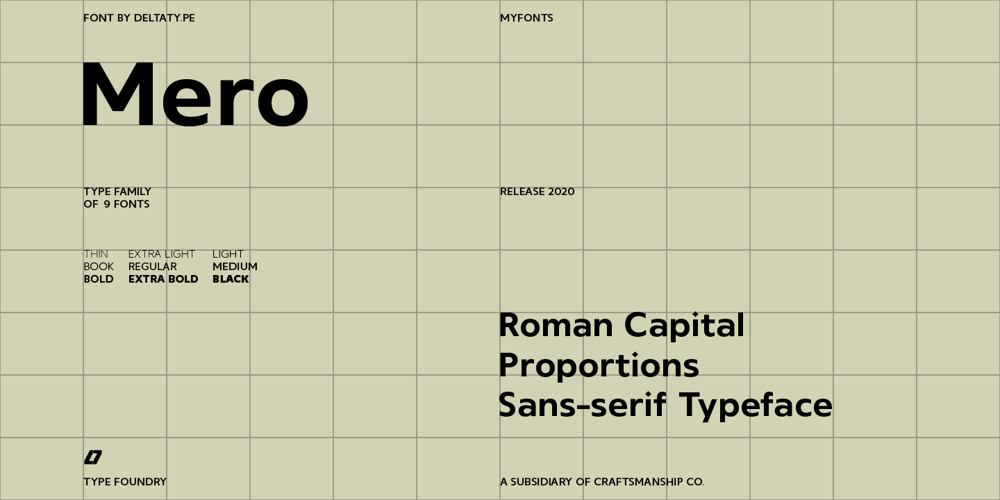
Mero
Mero font
Mero Font Family was designed by Kwanchai Akkaratammagul, Phatcharaphat Chatthawatthanathon and published by Deltatype. Mero contains 9 styles and family package options. Mero inspired by the Roman Capital Proportions which we have seen in Trajan Inscription. With different widths; There are applied each letter to visual proportion. Mero inspired by this measurement method and would like to create the primary typeface in terms of simple form. This sans serif typeface designed to use for any media with a little notice from designer eyes. You won’t notice much about style, but something will let you feel extraordinary and trust.Mero has supported over 30 languages and come with nine weights for a complete family. With the standard of CSS font-weight, Mero complete family will map beautifully for your digital layout.